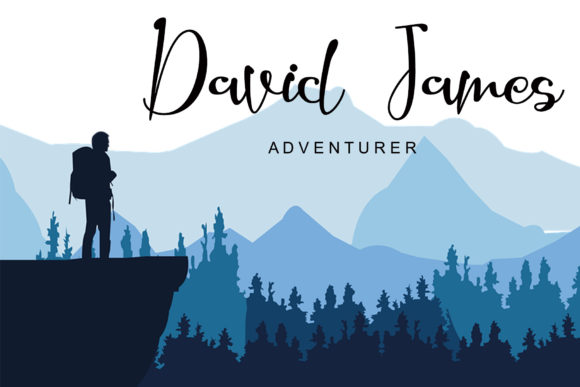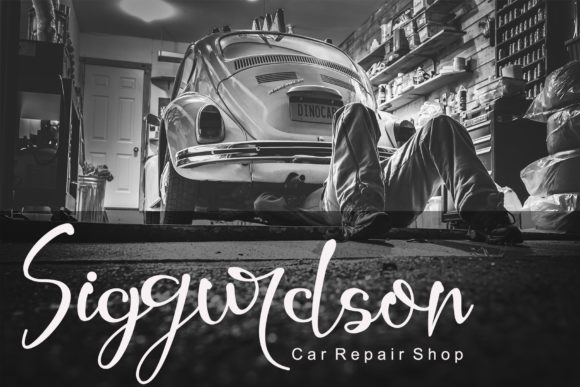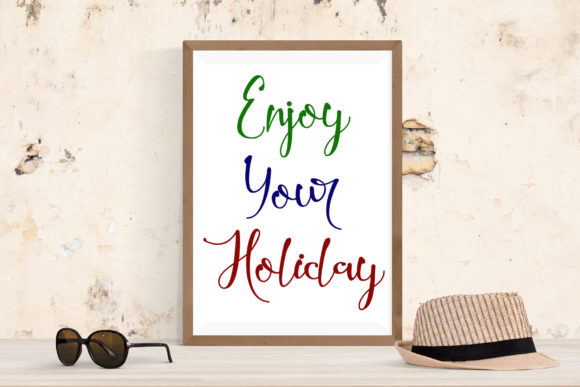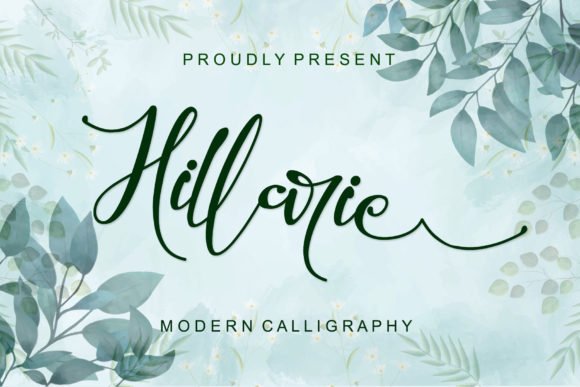
Introduction to Hillarie Font
Hillarie is an exquisite handwritten font, masterfully designed to become a true favorite.
Key Features of Hillarie Font
Why Choose Hillarie Font?
Hillarie Font offers exceptional quality and versatility, making it a valuable addition to your design toolkit. Whether you’re creating for personal projects or commercial use, Hillarie Font delivers professional results.